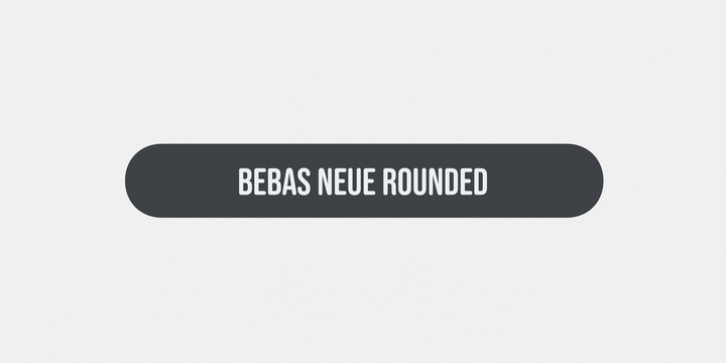
Bebas Neue Rounded is the Bebas Neue with rounded corners and terminals.
As you know, Bebas Neue is the most widely used free font recently. This rounded version is the new style for more widely use.
The basic theory and proportion are same as Bebas Neue but rounded shape gives a warm, soft and natural impression.
Softer impression than Bebas Neue SemiRounded. Available at an affordable price.